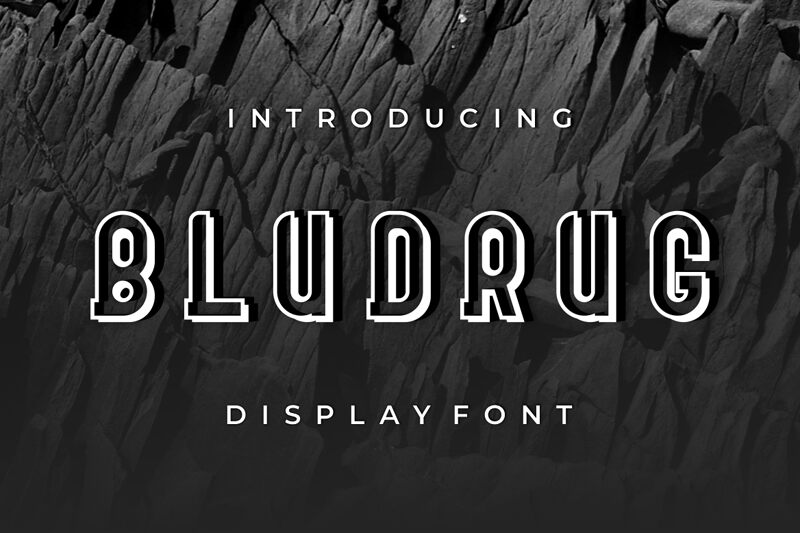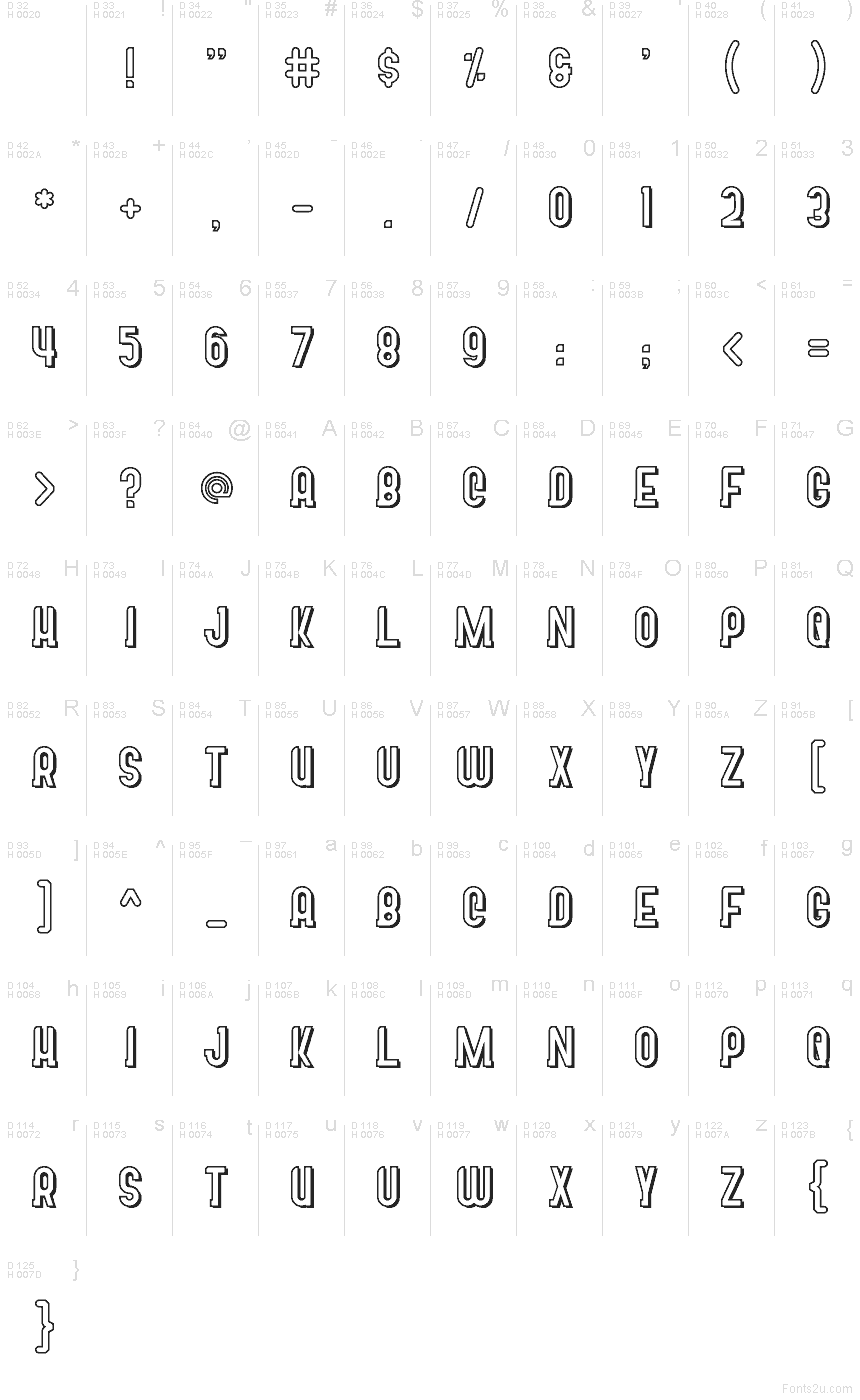
BLUDRUG
Bludrug font by Gilang Ternadho is a free decorative display typeface that turns every word into a bold, candy-coated headline. Its chunky, upright letters are hollowed out with a clean inner contour, so you get that punchy outlined look without feeling heavy or cluttered. Rounded corners and smooth, tubular strokes give it a playful, almost inflatable feel—like signage drawn with a thick marker, then sharpened for digital use.
This free font shines on posters, party invitations, kids’ branding, snack or toy packaging, bold logos, and YouTube or stream thumbnails where you need fun, legible impact at a glance. Using Bludrug at larger sizes really lets the outline detail breathe; pair it with a simple geometric sans serif for smaller supporting text so the quirky shapes stay in the spotlight.